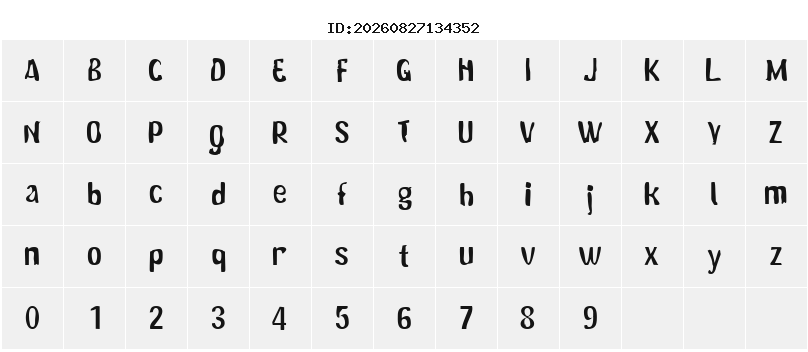
142-CAI978 Preview
• Font Name: 142-CAI978
• Font ID: 142-CAI978:Version 1.00
• Full Font Name: 142-CAI978
• Version: Version 1.00 April 10, 1997, initial release
• PostScript Name: 142-CAI978
• Character Count: 208
About 142-CAI978.ttf
142-CAI978.ttf is a modern, elegant sans-serif font designed for ultimate readability and visual harmony. Perfect for branding, headlines, web design, and print materials.